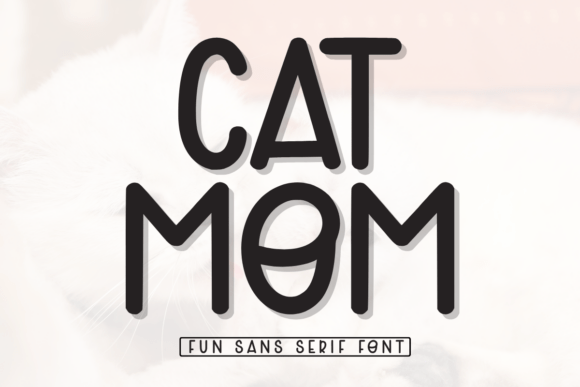
Introducing Cat Mom Font: The Purrfect Handwriting Font for Crafters and Creative Business Owners
Are you a crafter, Cricut user, or creative business owner looking for a fun and unique font to elevate your designs? Look no further than the Cat Mom Font! This delightful handwriting font is specifically designed with crafters, Cricut users, and creative business owners in mind, making it the perfect addition to your design toolkit.
What is Cat Mom Font?
Cat Mom Font is a carefully crafted handwriting font that exudes a playful and charming vibe. Its whimsical design makes it perfect for a wide range of creative projects, from T-shirts and stickers to planners, KDP interiors, invitations, and more. Whether you’re a seasoned designer or just starting out, this font is sure to bring a touch of personality and flair to your work.
Key Features of Cat Mom Font
- Handwriting Style: The font features a unique handwriting style that’s perfect for adding a personal touch to your designs.
Perfect for Crafters and Creative Business Owners
As a crafter or creative business owner, you know how important it is to have a unique and recognizable brand. Cat Mom Font is designed to help you achieve that. Its playful and charming design makes it perfect for:
Why Choose Cat Mom Font?
With so many fonts available, why choose Cat Mom Font? Here are just a few reasons:
- Unique Design: Cat Mom Font features a unique handwriting style that’s sure to set your designs apart.
Tips for Using Cat Mom Font
Here are a few tips for getting the most out of Cat Mom Font:
In conclusion, Cat Mom Font is a fun and unique handwriting font that’s perfect for crafters, Cricut users, and creative business owners. With its playful design, ease of use, and compatibility with a range of formats, it’s the perfect addition to your design toolkit. Whether you’re looking to create custom T-shirts, stickers, planners, or invitations, Cat Mom Font is sure to help you achieve your design goals.